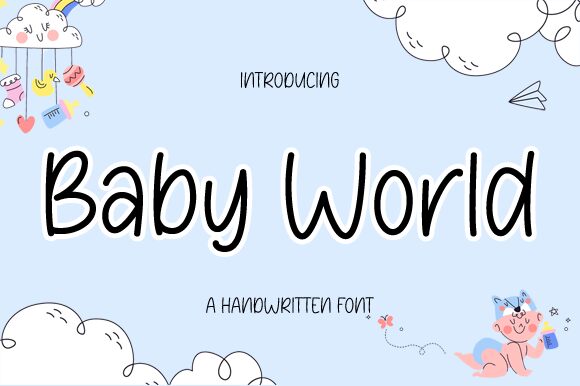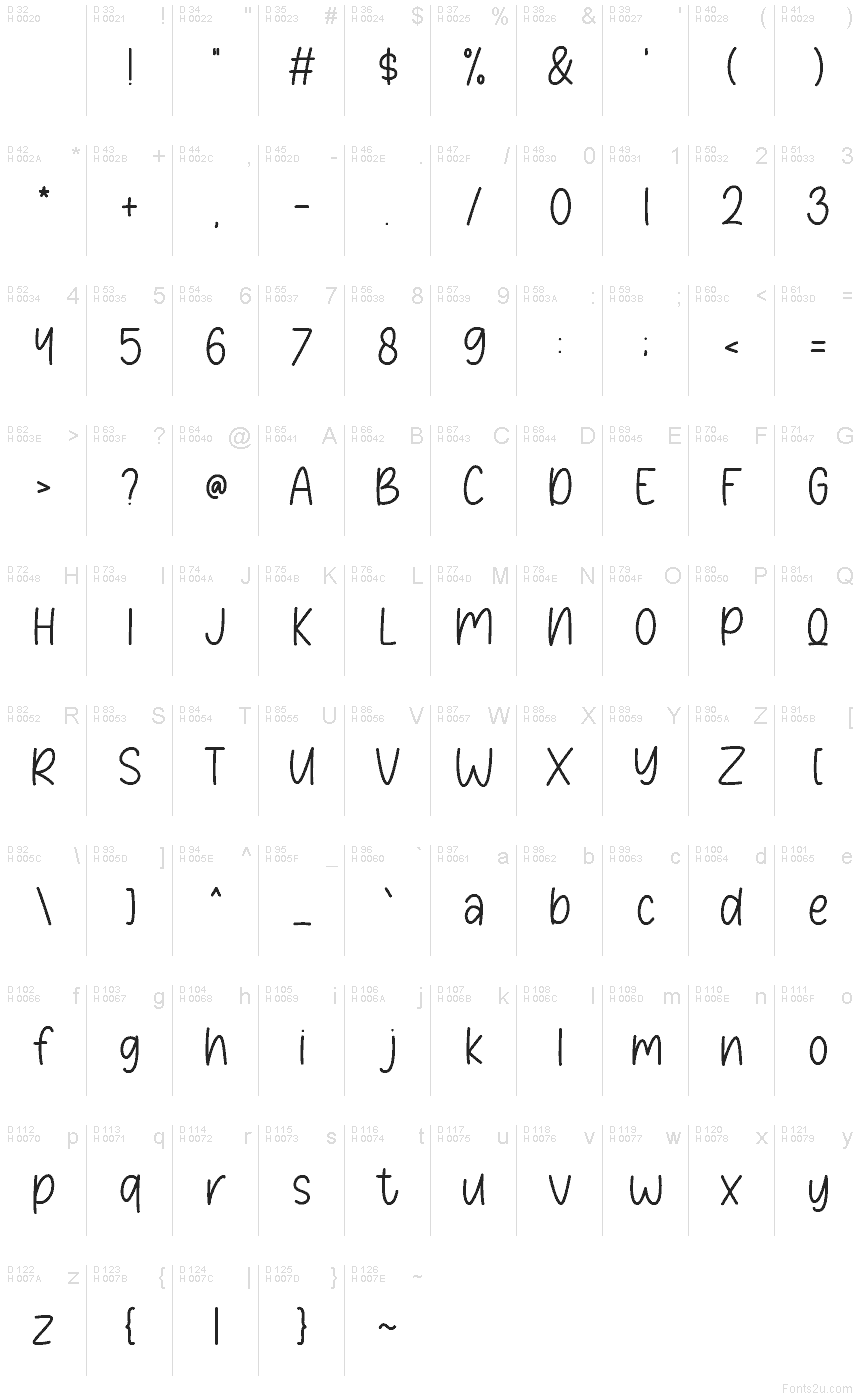
Baby World
Baby World font by Nirmala Creative is a free handwritten typeface with a breezy, kid-friendly bounce. Rounded strokes, gentle curves, and roomy spacing give it a warm, inky feel—like a neat marker on smooth cardstock. It reads clearly at small sizes yet keeps that playful wiggle that makes young audiences smile.
Using Baby World, your projects get an instant nursery-bright charm. It shines on baby shower invitations, nursery wall prints, toy packaging, daycare logos, birthday banners, and kids’ apparel tags. The steady rhythm keeps headlines cheerful without getting messy, and short blocks of copy stay readable. Pair this free font with a tidy soft sans for details, and let Baby World handle the big, happy words.